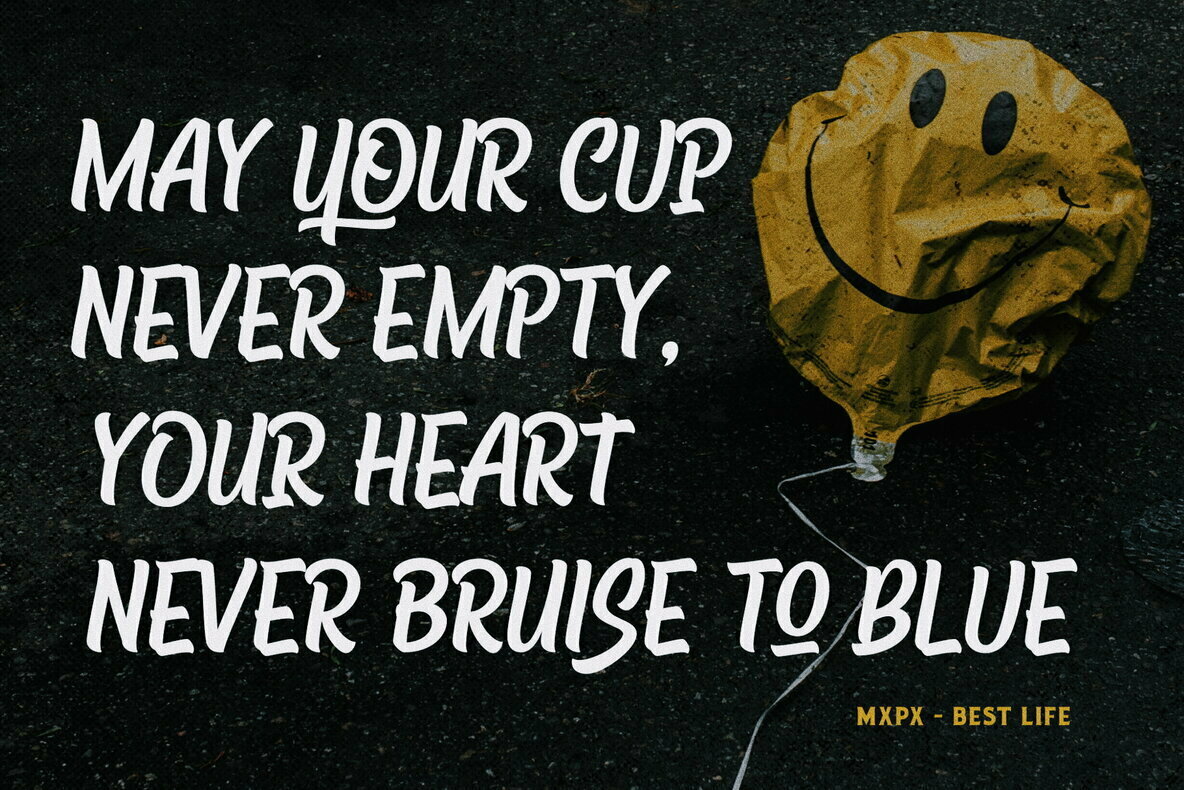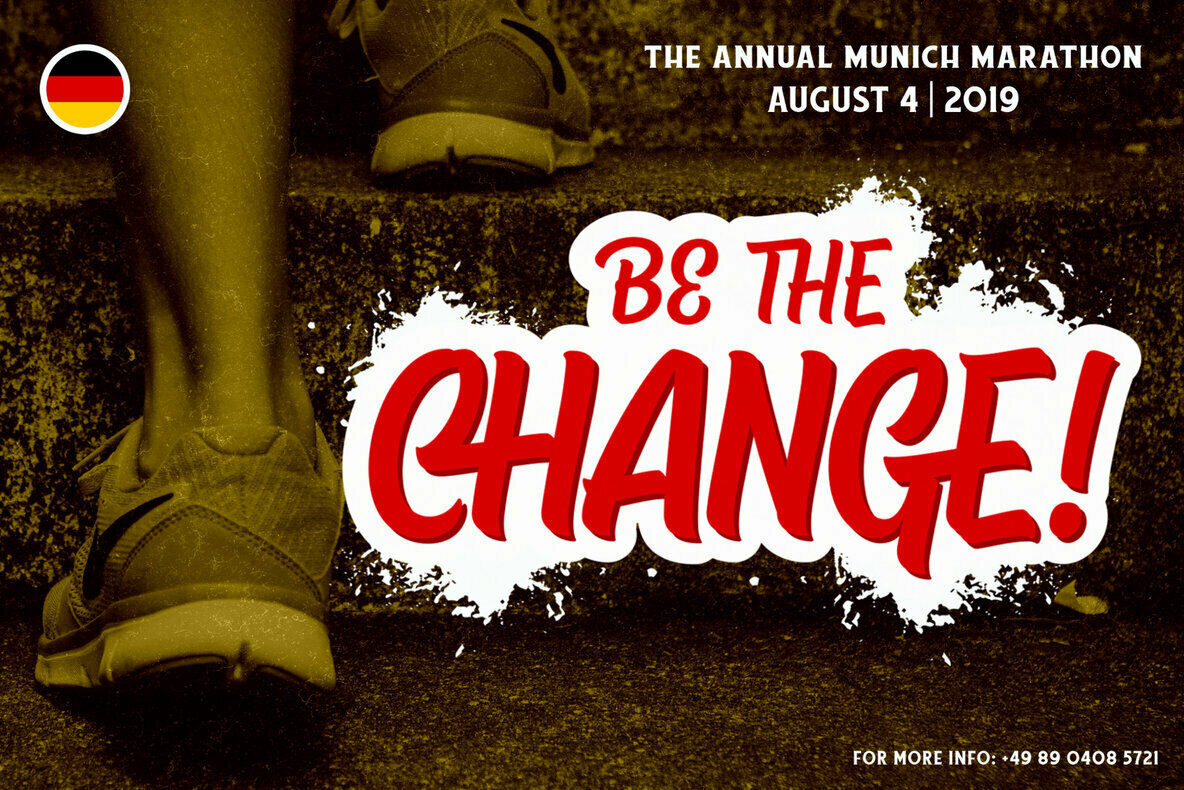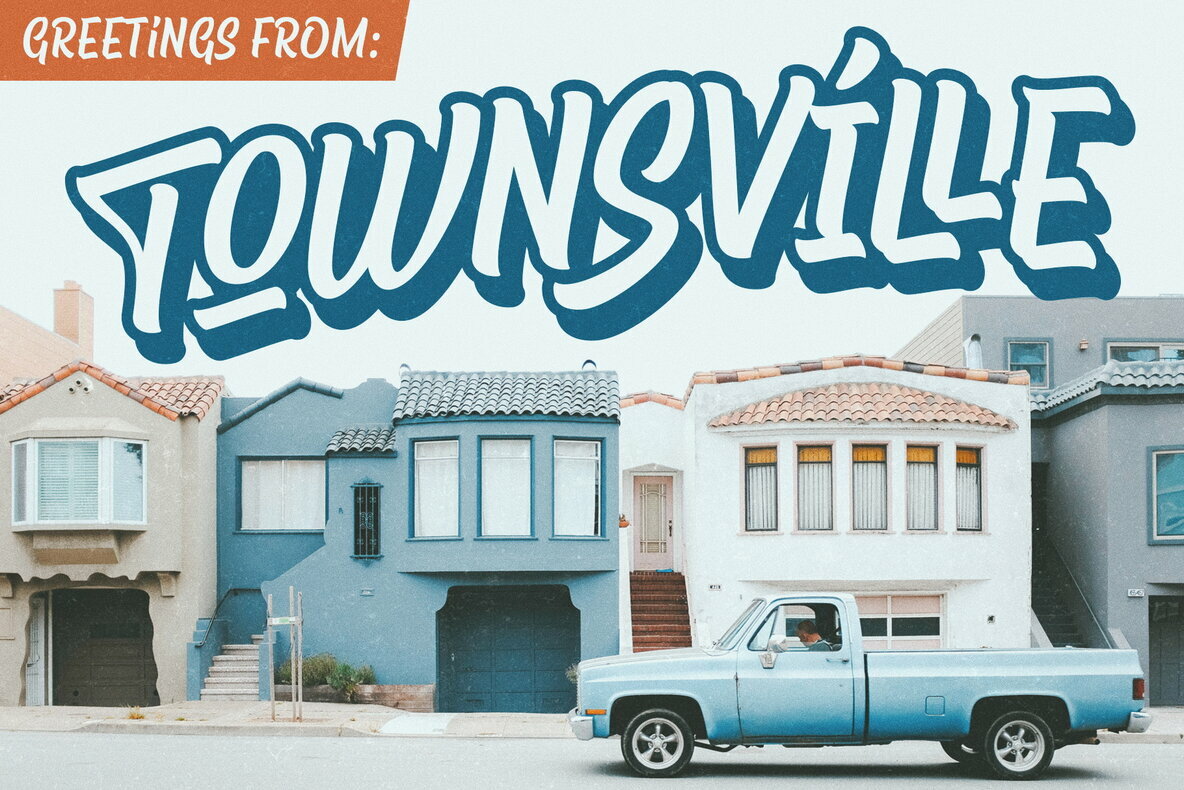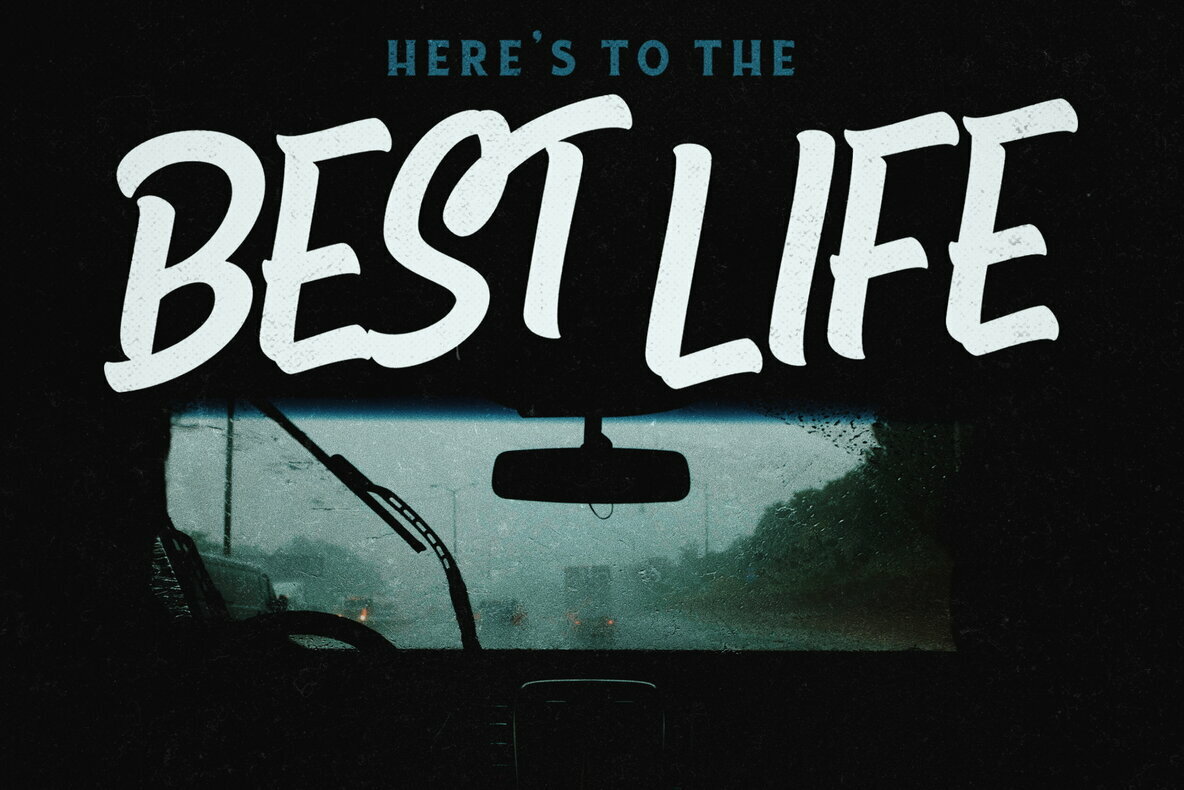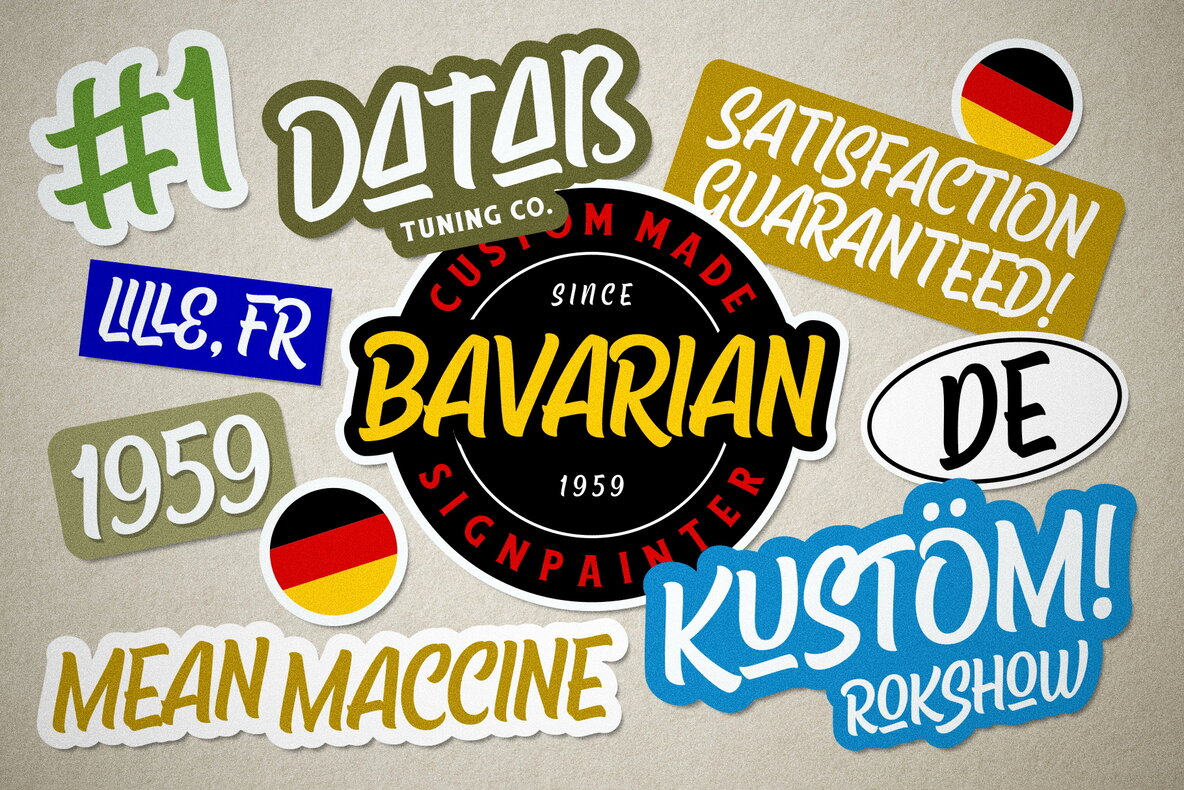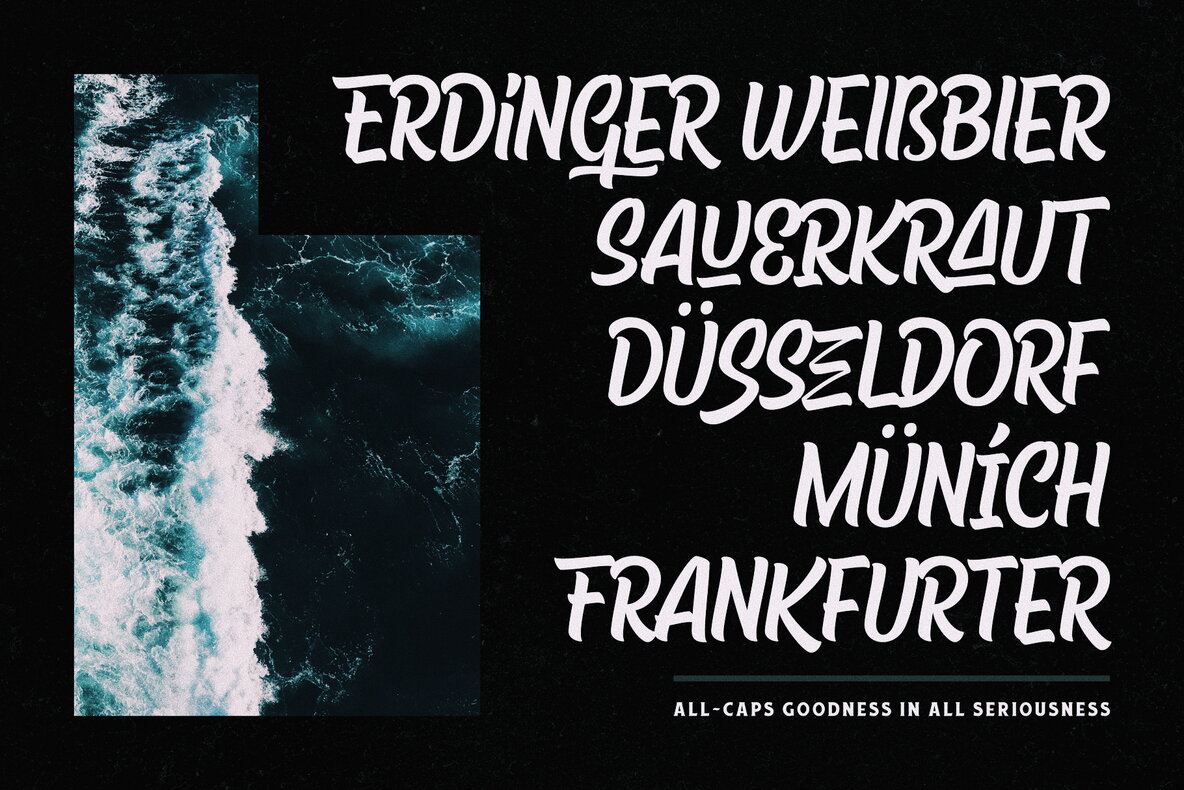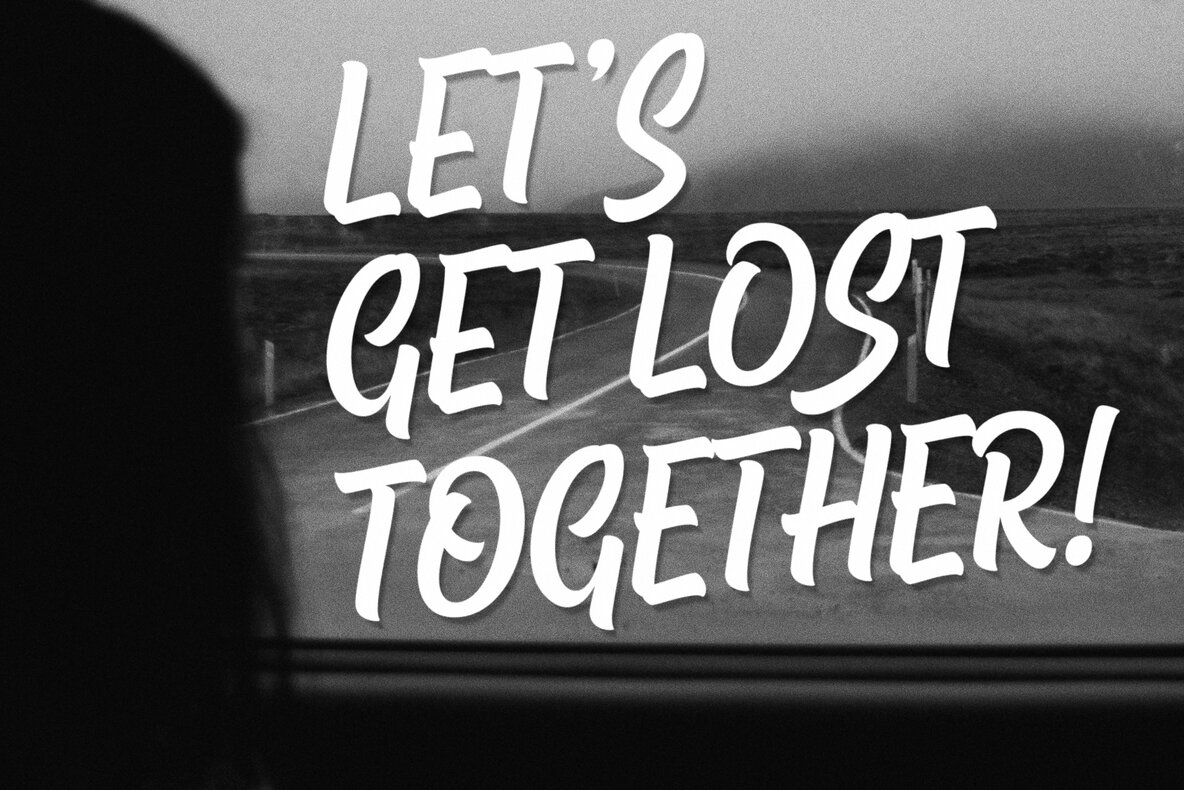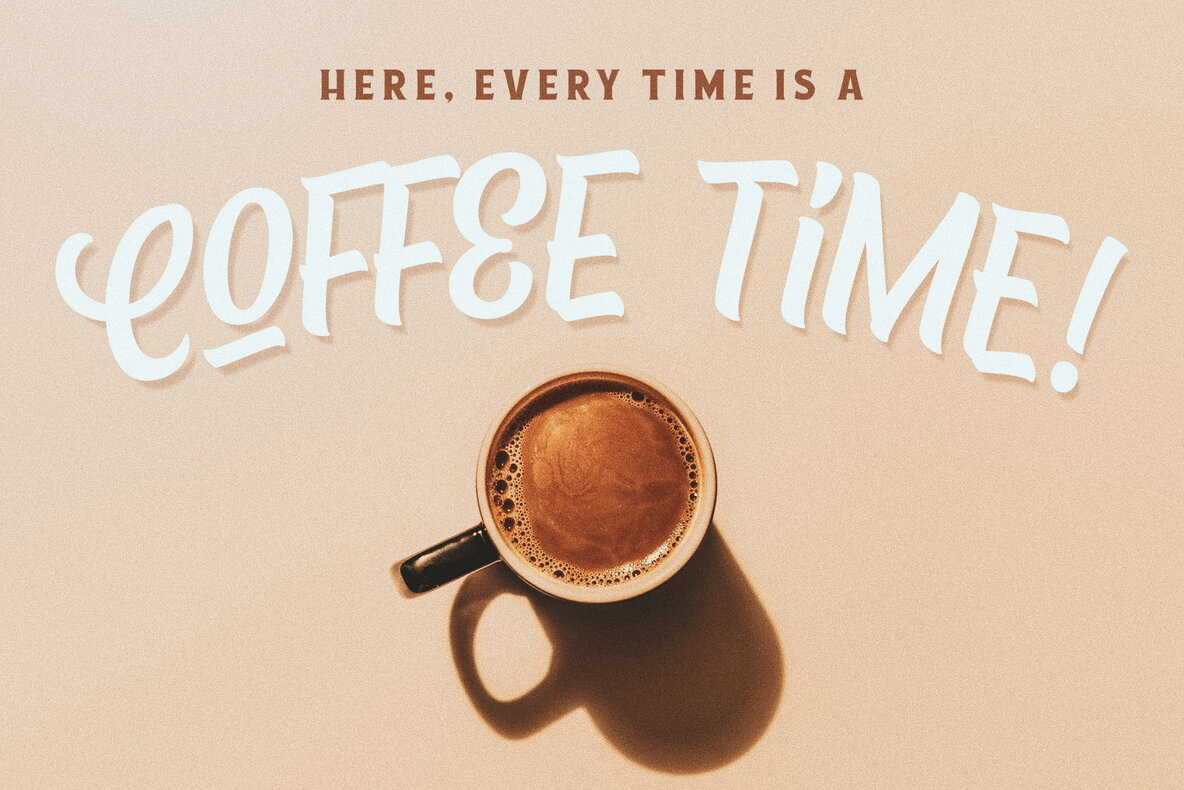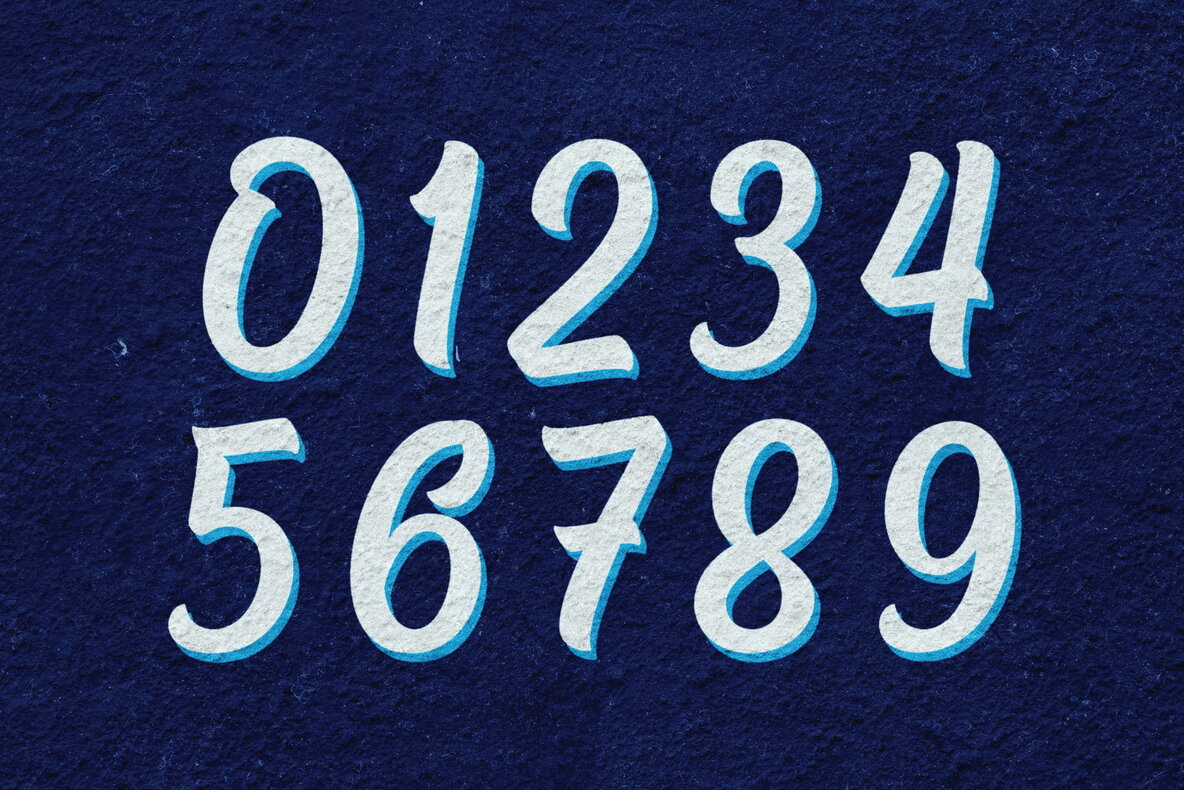
Chuck Noon Brush Font
After the hit of previous script version, we decided to explore and re-develop our Chuck Noon series into an all-caps brush version. A clean and bold font that offers you a natural vintage sign painting experience. Handcrafted and digitally checked with high attention to the details, we're a sucker for clean lines and crispy edges too, just like you. Its dynamic letterforms work like magic, combine both upper and lower case to get the various letter combinations. Suits best for logotype, poster/t-shirt designs, food/beverage labels, faux-sign painting design, hipster quotes, greeting cards, wedding invitations, and many more.